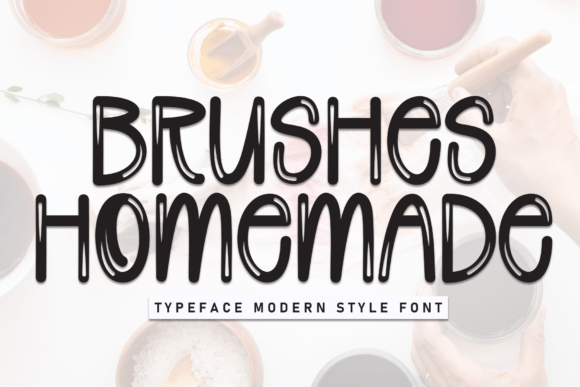
Introduction to Brushes Homemade Font
Brushes Homemade is a neat and casual display font that radiates fun and relaxation.
With clean lines and an easygoing vibe, it’s perfect for summer posters, event flyers, and playful branding This cheerful typeface brings a breezy, laid-back feel to any creative project or message.